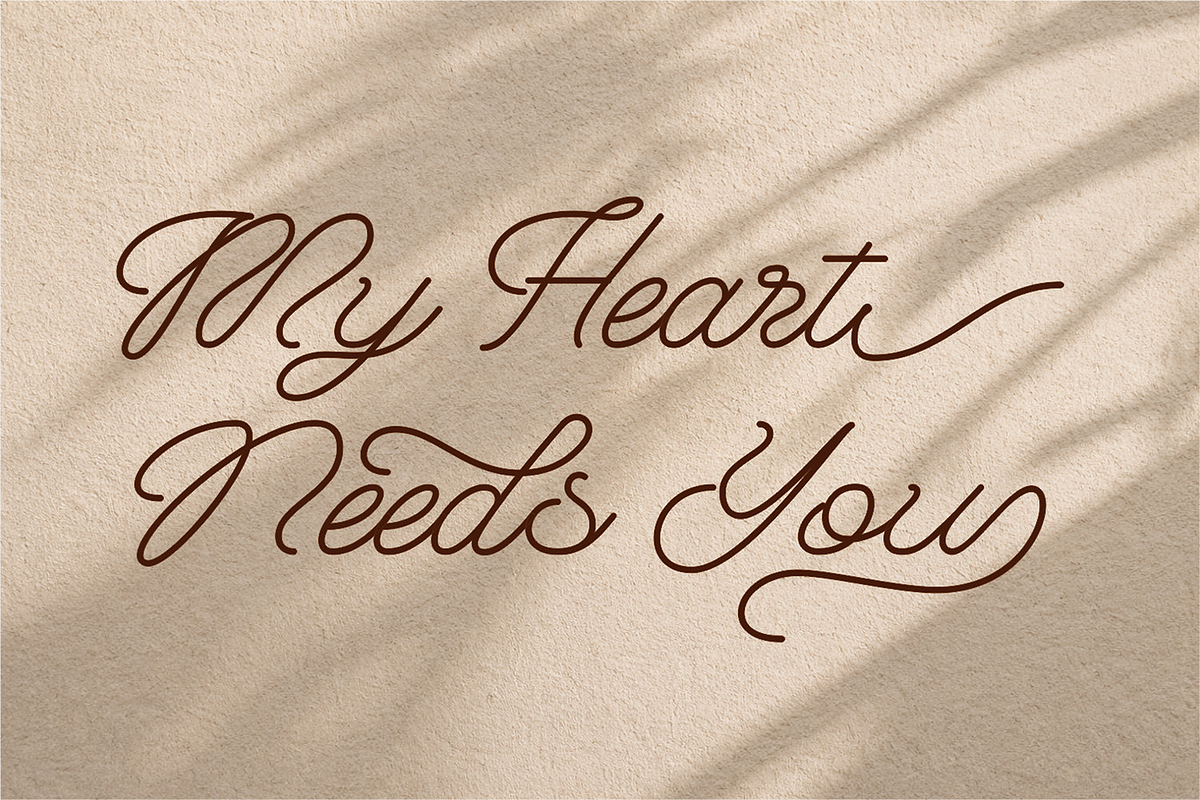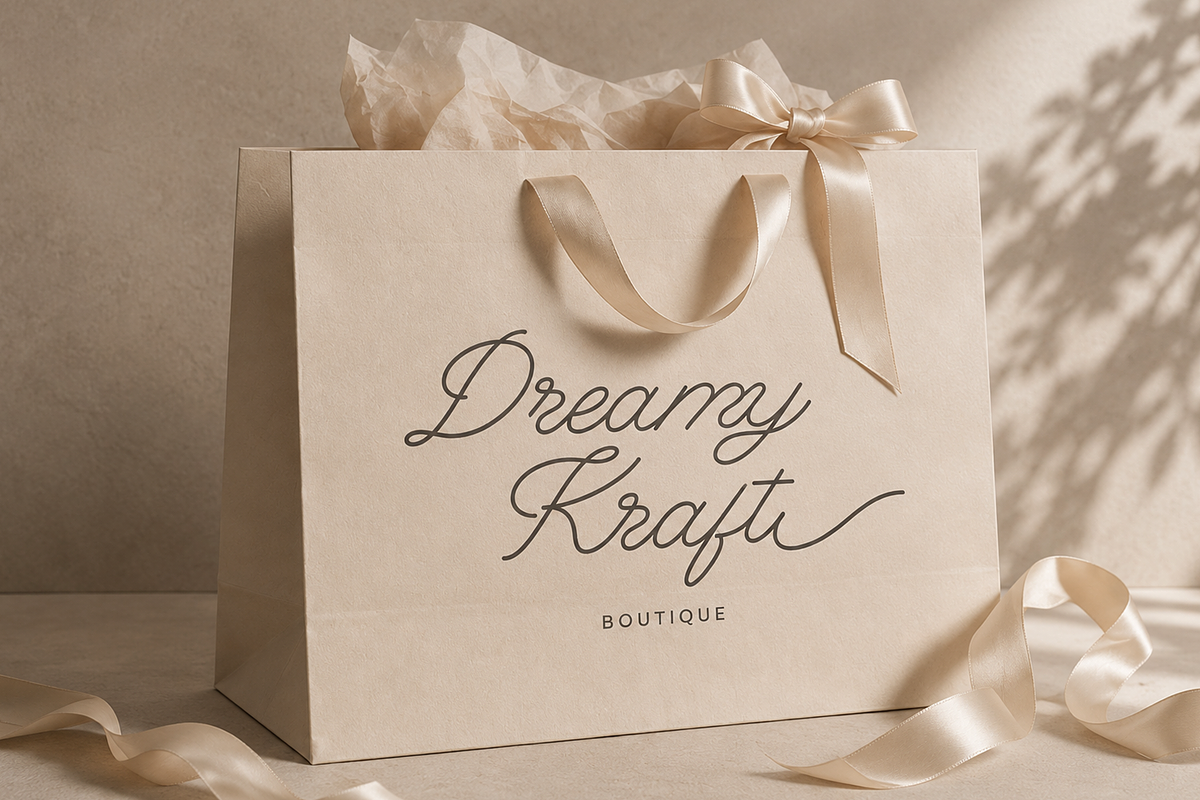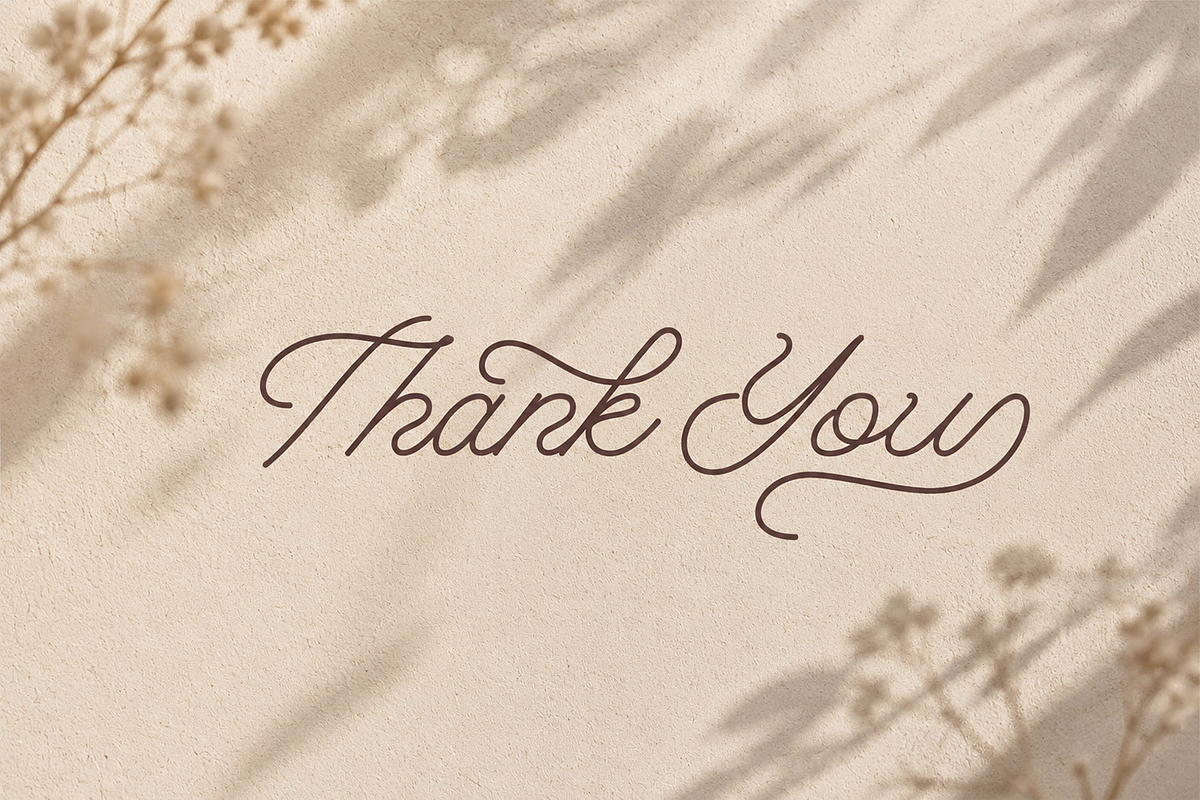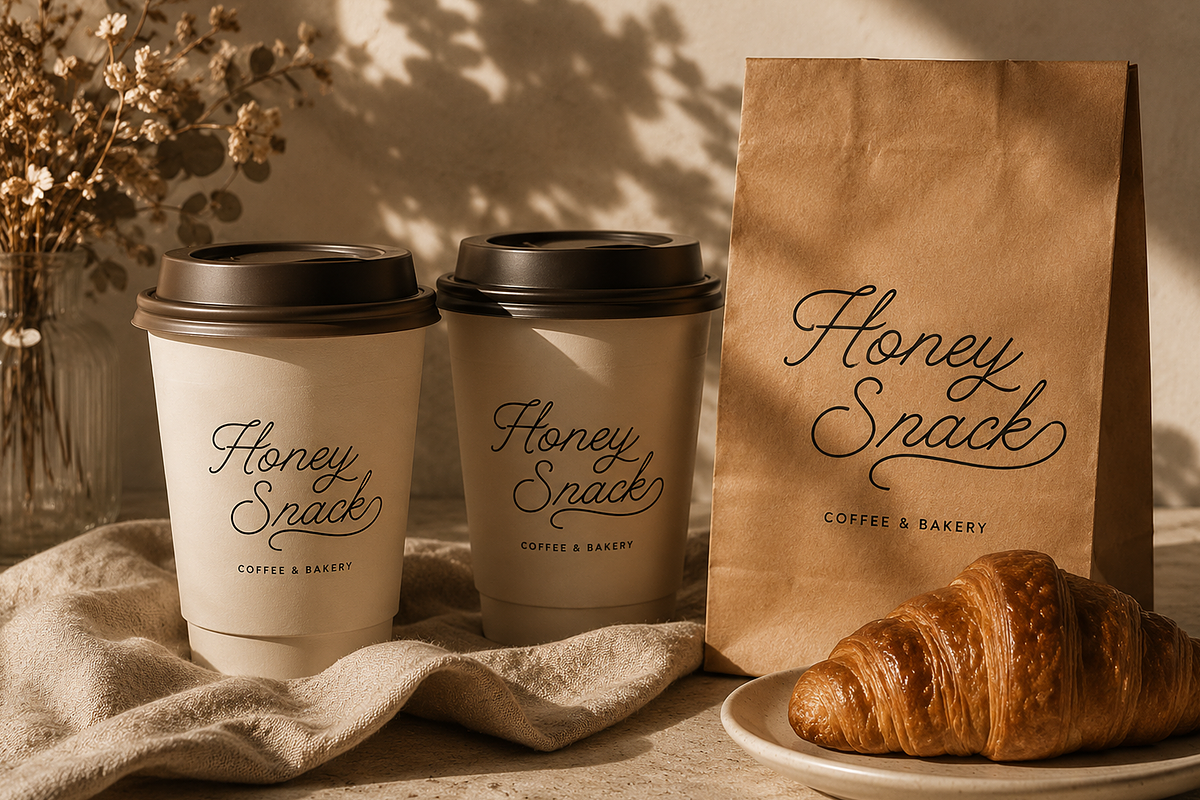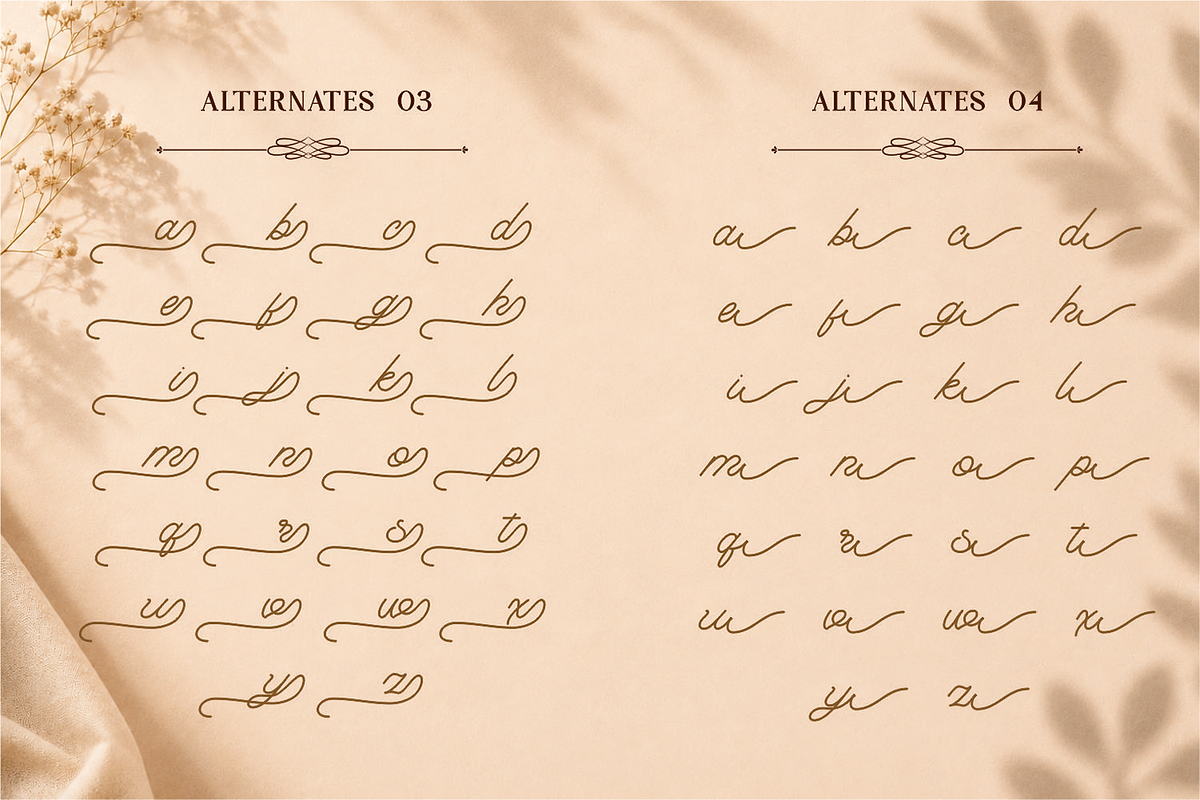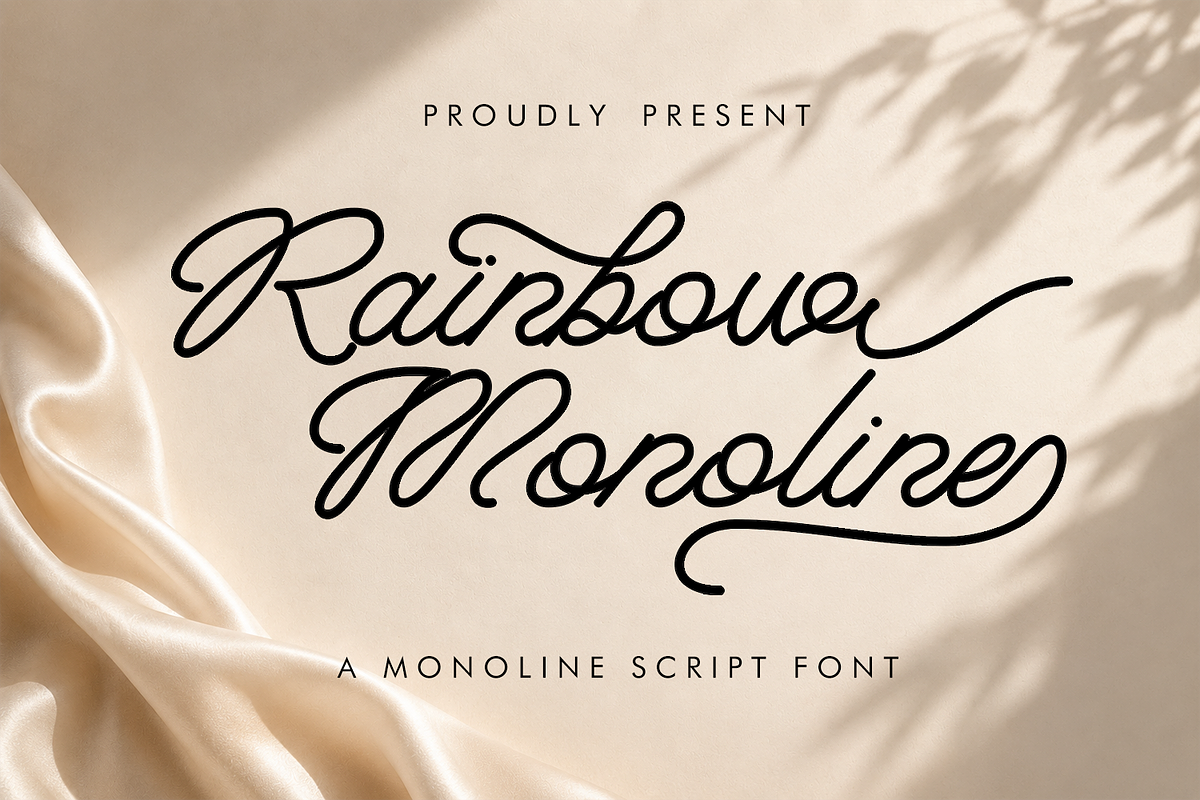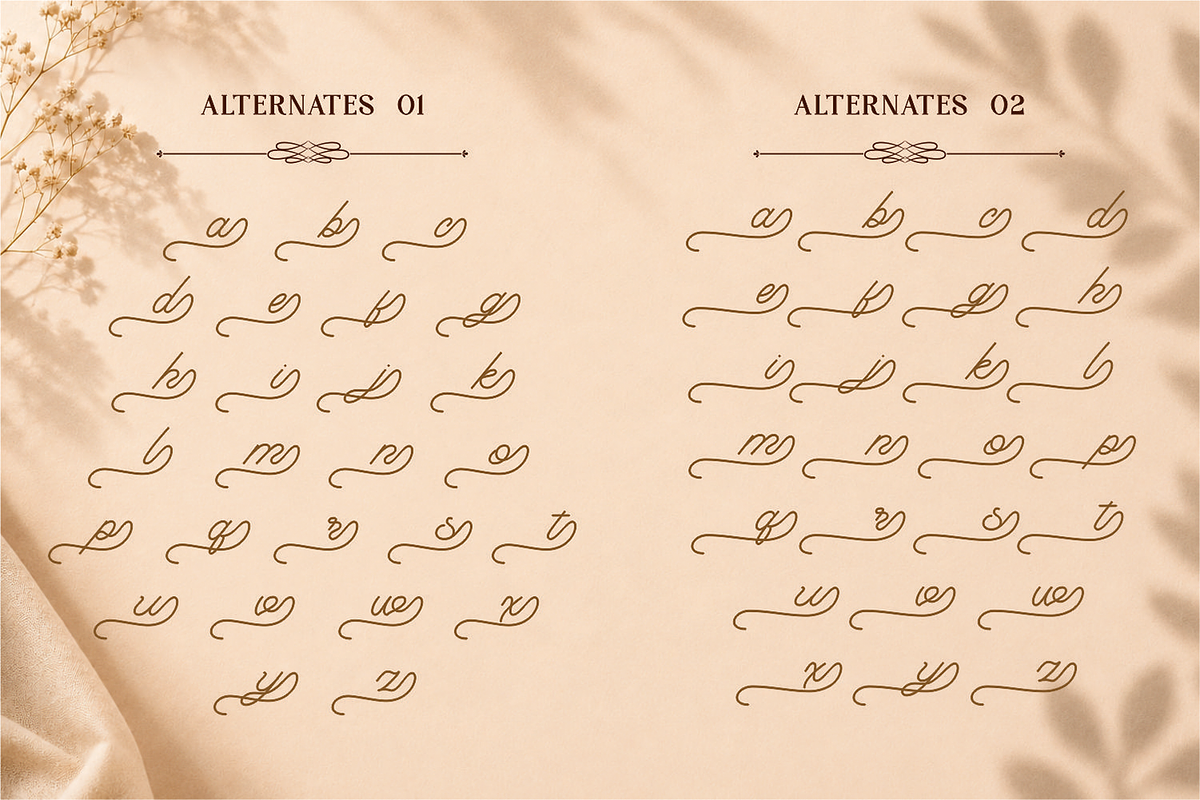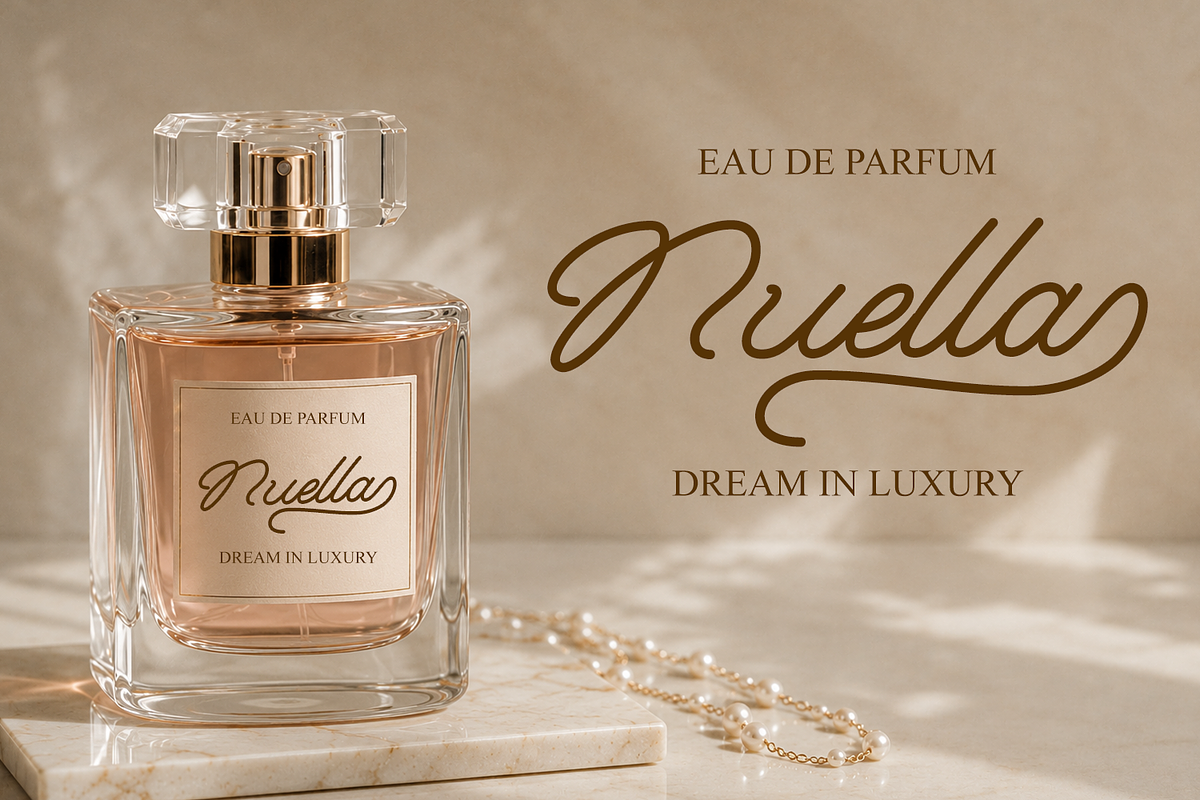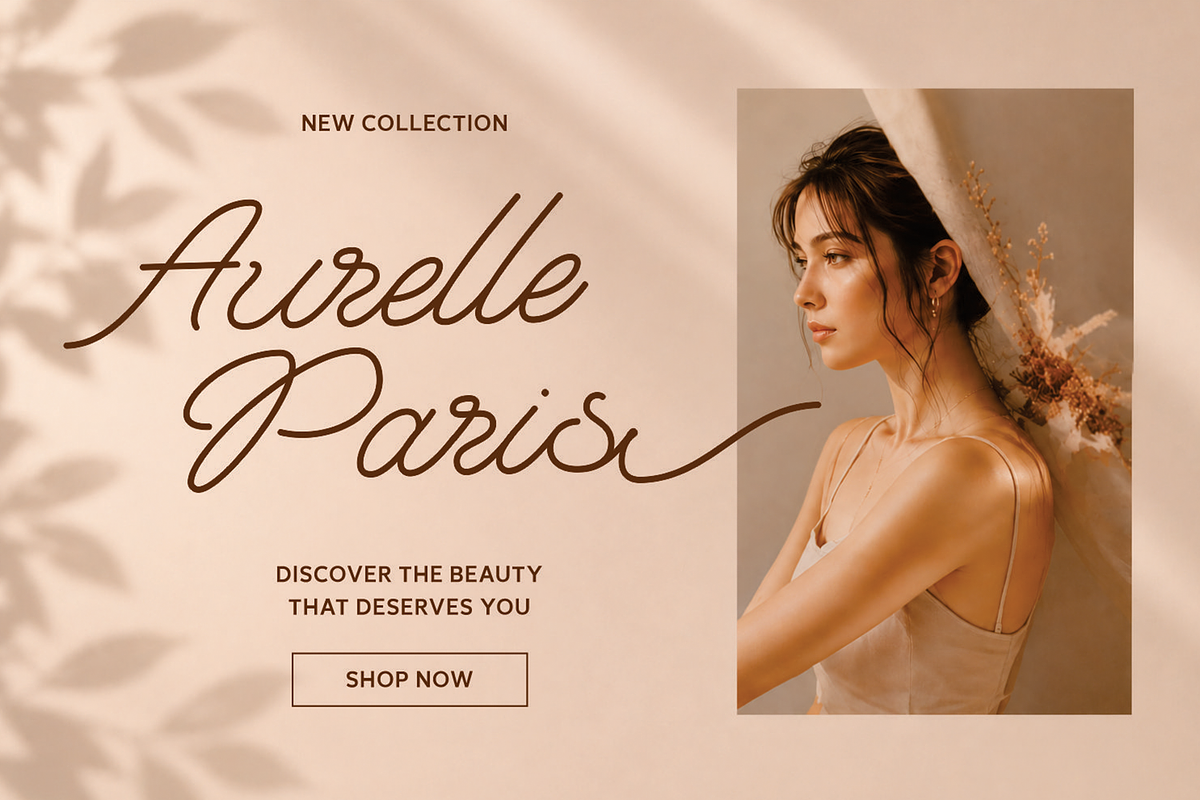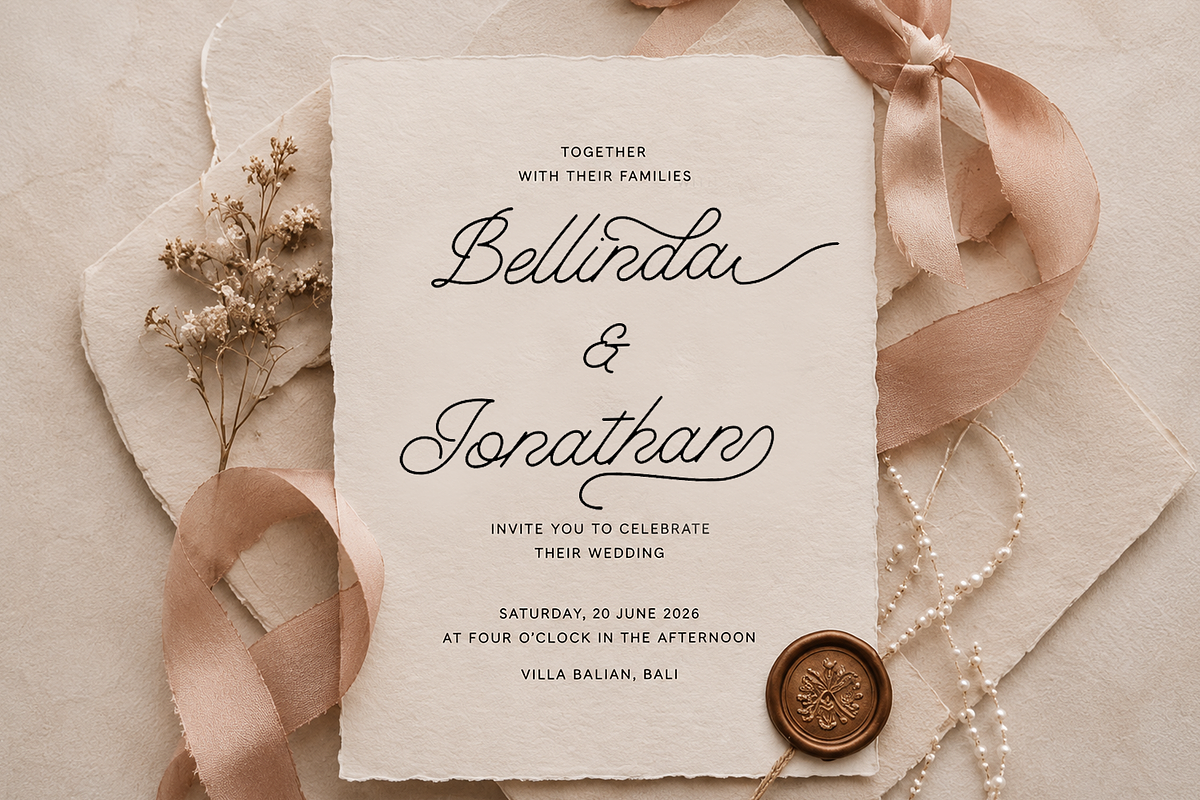
Rainbow Monoline
Rainbow Monoline – Playful Monoline Script Font
Rainbow Monoline is a playful monoline script font designed to bring a cheerful, smooth, and modern touch to your creative projects. Featuring clean single-line strokes and flowing handwritten curves, this font creates a friendly and stylish appearance that feels both fun and elegant.
Crafted with a soft and balanced monoline structure, Rainbow Monoline delivers a clean handwritten aesthetic while maintaining excellent readability. Its rounded forms and natural flow make every word feel warm, expressive, and full of personality.
This font is perfect for a wide variety of creative applications, including branding, logo design, greeting cards, social media graphics, invitations, product packaging, and craft projects. Its playful character makes it especially suitable for kids-themed designs, lifestyle branding, and colorful modern layouts.
Rainbow Monoline also works beautifully for Cricut projects, SVG designs, stickers, quotes, and DIY creations, offering versatility across both print and digital media. Whether you're designing something minimal, cute, or artistic, this font adapts effortlessly to your style.
With its smooth monoline strokes and charming handwritten feel, Rainbow Monoline helps create designs that feel modern, joyful, and approachable.
Monoline Script Style
Clean single-line strokes with smooth handwritten flow.
Playful & Modern Look
Friendly letterforms with cheerful personality.
Clean & Readable
Balanced curves for clarity and visual appeal.
Versatile Design Use
Perfect for creative, branding, and craft projects.
Craft-Friendly Font
Ideal for Cricut, SVG, and DIY applications.
Extended characters for global design use.
• Logo & Branding Design
• Greeting Cards & Invitations
• Social Media Graphics
• Quotes & Typography Art
• Product Packaging
• Stickers & Merchandise
• Cricut & Craft Projects
• Kids & Lifestyle Designs
Add Joyful Simplicity to Your Designs
If you're looking for a font that combines playful charm with clean monoline elegance, Rainbow Monoline is the perfect choice. Its smooth handwritten style makes every design feel friendly, modern, and full of creativity.